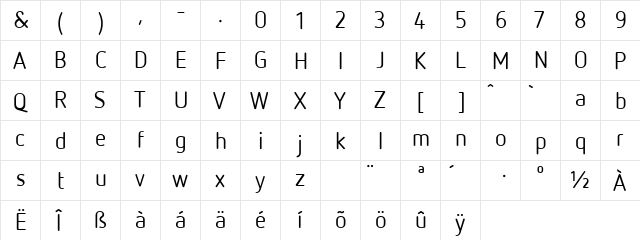
Netto OT Regular Font Preview
Netto OT Regular
Netto OT Regular Font Details
| Foundry | Daniel Utz |
Design Context for Netto OT Typeface
Netto OT offers clean, dependable letterforms without strong stylistic allegiance, making it a practical choice for designers who need flexibility.
Pro Tip: Use Netto OT in both headline and body roles to test its range before committing to a single application.